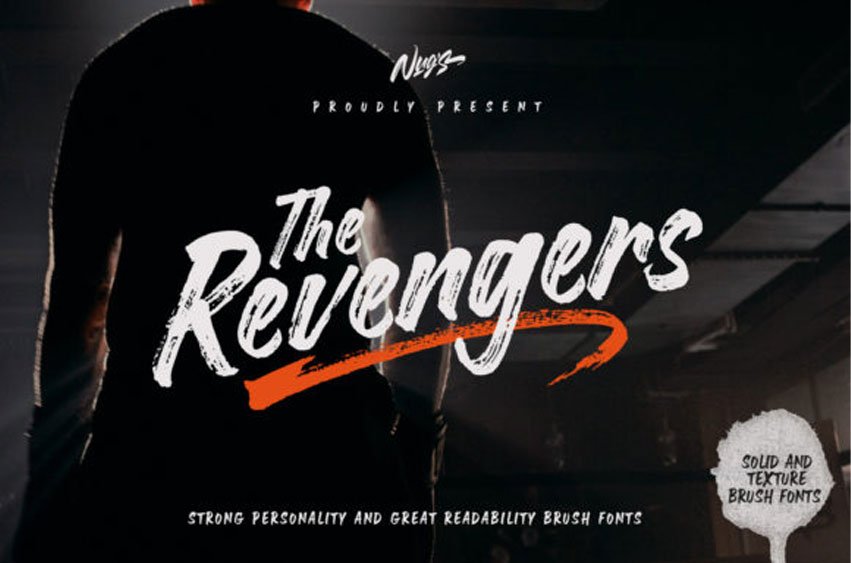
The Revengers Font is a cool looking, brushed display font.
Add this rough textured font to your library and use it for any sporting event or urban art that you wish to bring to life.